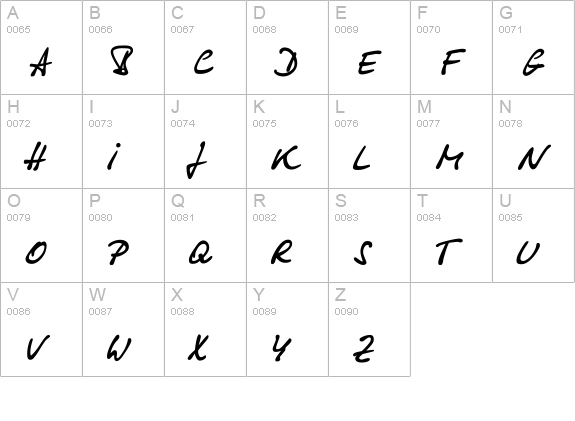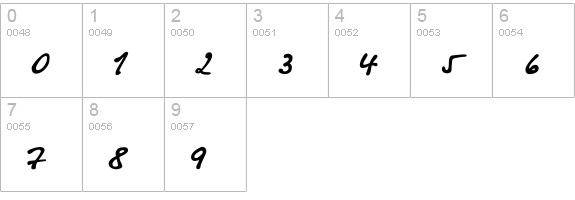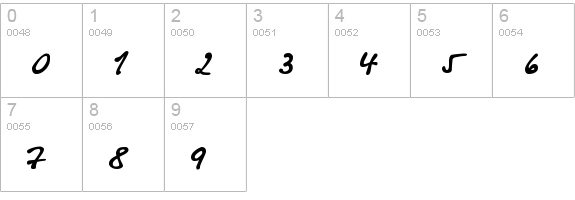
OlgaCTT Font Details
Introducing OlgaCTT font, a beautifully crafted typeface that exudes elegance and sophistication. With its sleek lines and modern design, OlgaCTT is perfect for adding a touch of class to any project. Whether you're designing a logo, creating a website, or working on a print advertisement, this versatile font is sure to impress. What sets OlgaCTT apart is not just its stunning aesthetic appeal, but also the fact that it is completely free to use. Yes, you read that right - OlgaCTT is freely available to download at FontsMarket.com. Say goodbye to expensive font licenses and hello to high-quality typography that won't break the bank. So why wait? Elevate your designs with OlgaCTT font today and experience the beauty of premium typography without the premium price tag. Download it now and see for yourself why OlgaCTT is the go-to choice for designers everywhere.